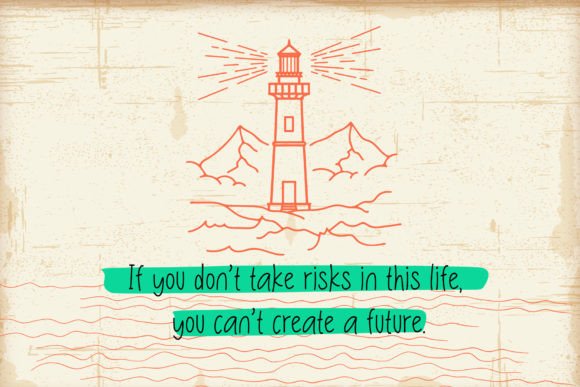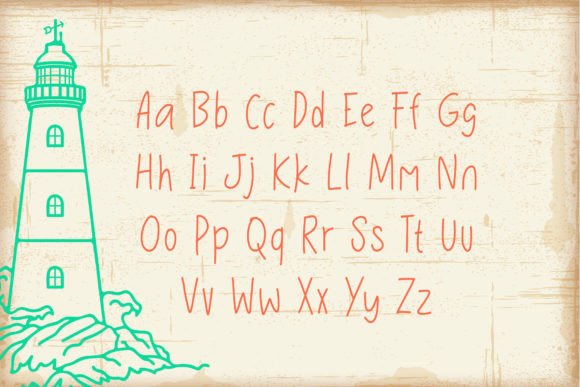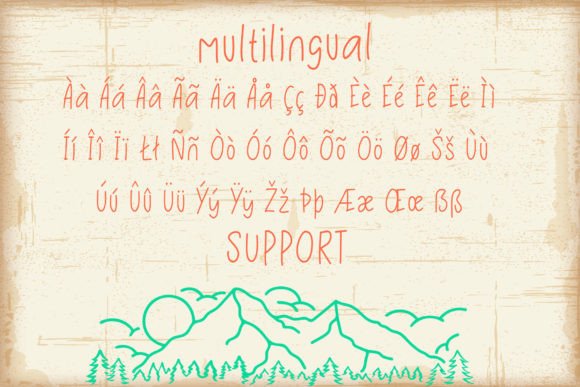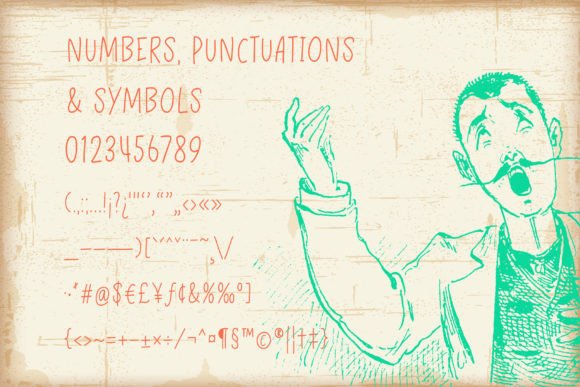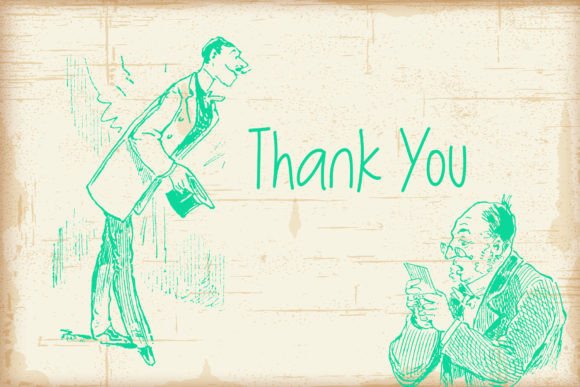
Introduction to Noterwan Font
As designers, we’ve all been there – staring at a blank canvas, searching for the perfect font to bring our creative vision to life. But what if we told you that there’s a font that can make your designs truly stand out? A font that’s not just a digital representation, but a genuine, heartfelt expression of your personality? Welcome to the world of Noterwan Font, a unique and personal handwritten font that’s about to revolutionize the way you approach design.
With its high-quality design and transparent background, the Noterwan Font is a valuable resource for any creative project. Whether you’re working on a free download design or a premium branding project, this font is sure to add a touch of warmth and authenticity to your work. And the best part? It’s available for free download, making it a must-have for any design enthusiast.
- Unique, hand-drawn style with a transparent background, allowing for seamless integration with various design elements.
- Includes a large character set, covering a wide range of languages and characters, making it a versatile design resource.
- Designed to be highly legible and visually appealing, making it perfect for use in logos, branding, and other creative projects.
Honest Review: Noterwan Font
I recently had the chance to try out the Noterwan Font, a free download that’s quickly becoming a design resource for creative projects. Overall, I’m impressed with what this font has to offer, and I think it’s a great addition to any designer’s toolkit.
What works well: ✨ The Noterwan Font has a high quality, clean design that’s perfect for a variety of projects. It’s easy to read, even at smaller font sizes, and it’s a great choice for anything from business reports to creative writing. I also appreciate the transparent background option, which makes it easy to layer this font over other design elements.
What doesn’t work well: ⚠️ One of the limitations of this font is that it’s not ideal for use in situations where you need a lot of bold or italic font options. The font family is relatively small, and you may find yourself wishing for more variations to choose from.
Overall, I’m really impressed with the Noterwan Font, and I think it’s a great choice for designers who are looking for a high quality, free design resource. With a little creativity, I’m confident that this font will become a go-to choice for all sorts of creative projects.
- High quality design
- Perfect for creative writing and business reports
Noterwan Font is commonly used in design projects that require a unique and elegant touch, such as wedding invitations, business cards, and social media graphics.
Comparison to Noterwan Font: While Noterwan Font has a more modern and bold feel, Great Vibes Font is more classic and sophisticated, making it a great choice for projects that require a more traditional look.